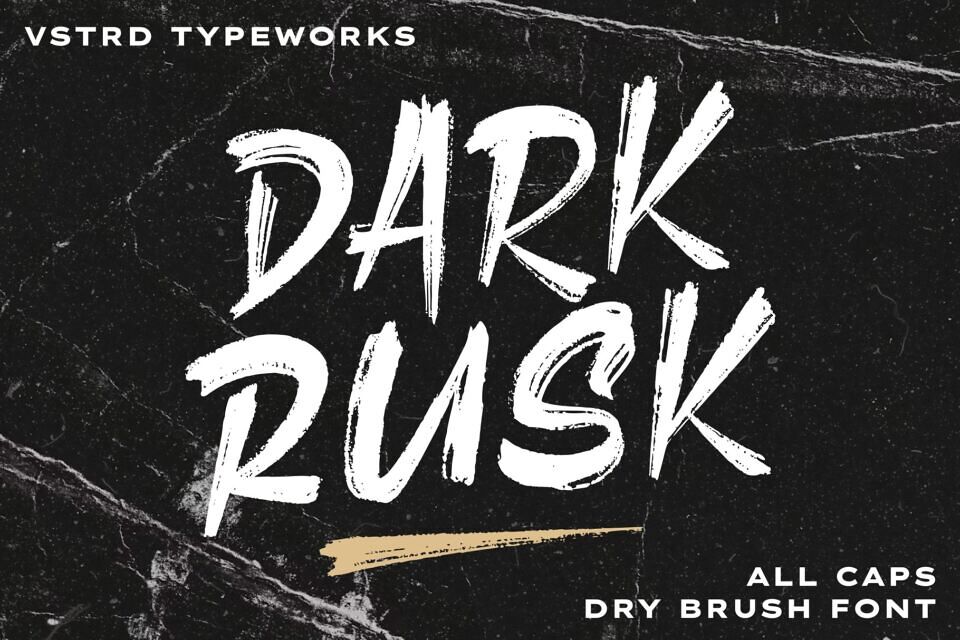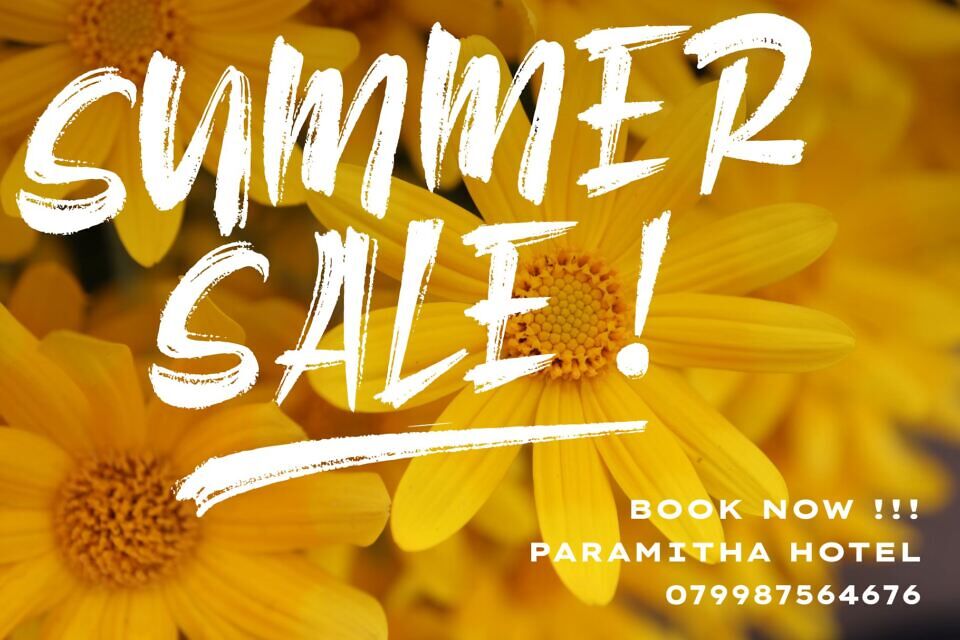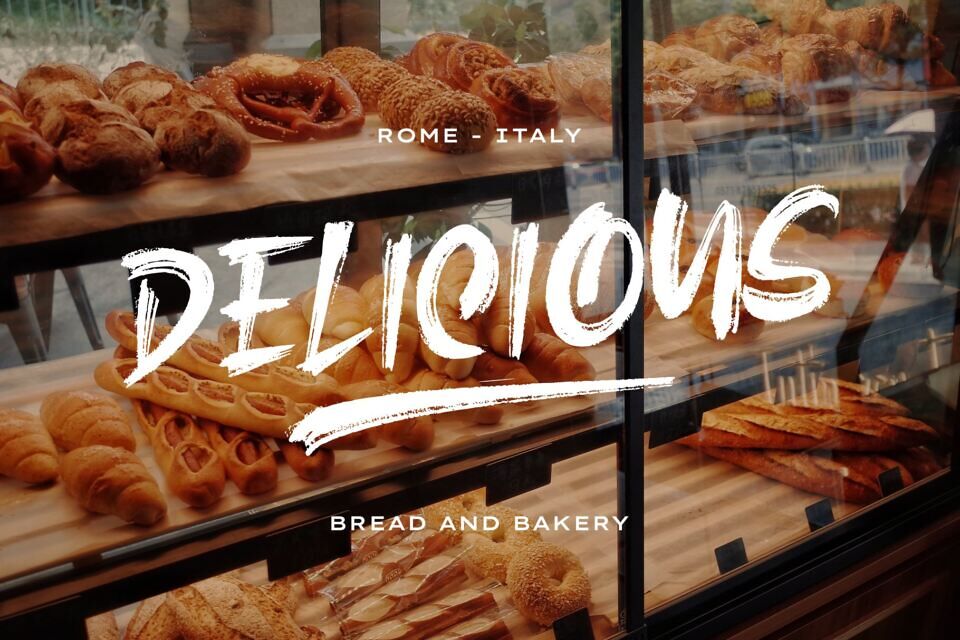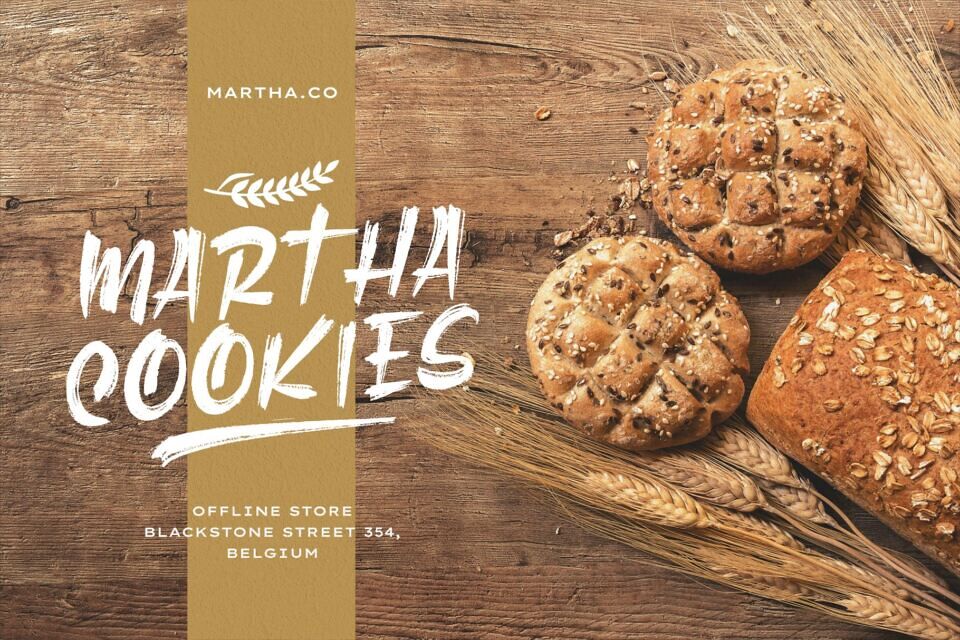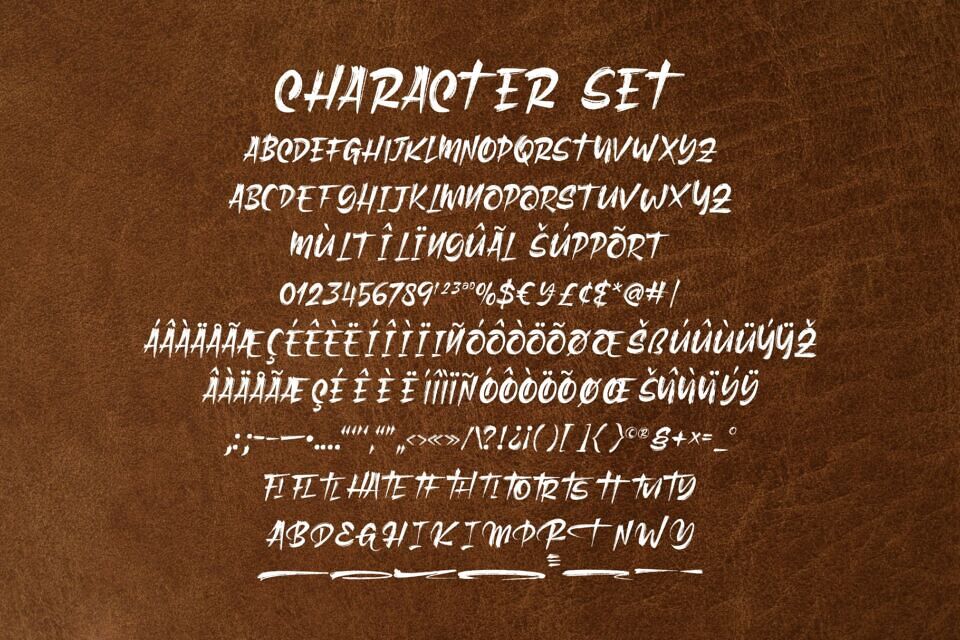
Bring energy and attitude to your designs with Dark Rusk, a powerful dry brush font crafted from natural, hand brush strokes. With its raw, expressive strokes and dynamic texture, this font is perfect for projects that demand a bold, rebellious edge.
Ideal for logos, food & beverage branding, promotional campaigns, video titles, product packaging, quotes, posters, flyers, t-shirts, and eye-catching text overlays, Dark Rusk adds a handcrafted, urban feel to any design.